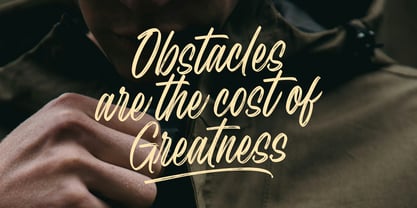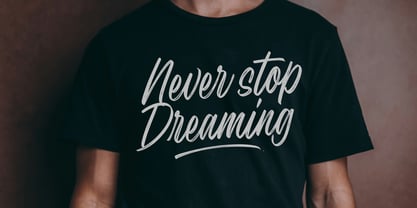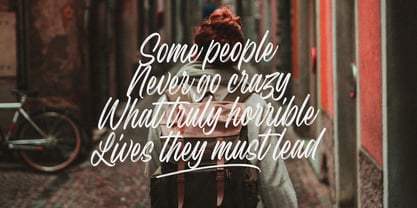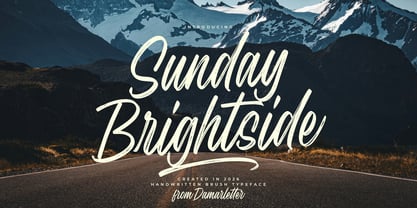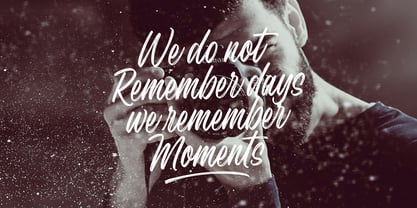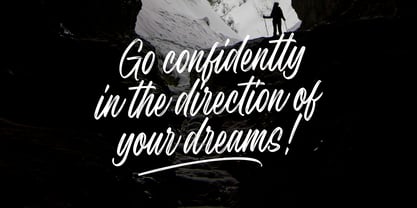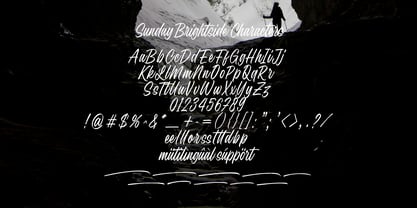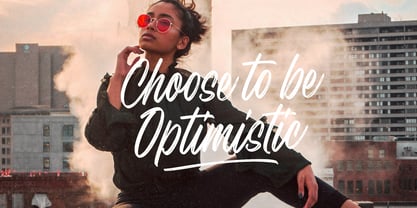
Sunday Brightside
by Damarletter
The Sunday Brightside Font Family was designed by Ardian Nuvianto and published by Damarletter. Sunday Brightside contains 1 styles. More about this family
Sunday Brightside is a lively and expressive handwritten brush typeface that captures the joy and freedom of creative expression. With its bold, textured strokes and natural hand-painted flow, this font radiates positivity and charm, making it perfect for designs that aim to feel energetic and uplifting. Inspired by the spontaneity of brush lettering, Sunday Brightside features dynamic letterforms with authentic brush textures that add depth and personality to every word. Whether you’re designing eye-catching posters, stylish branding, social media graphics, or playful packaging, this typeface brings a fresh and modern vibe to your projects. The organic movement and confident strokes of Sunday Brightside create a sense of warmth and approachability, while still maintaining a strong visual impact. Its versatile style makes it suitable for both casual and bold creative concepts, effortlessly standing out in both print and digital designs. Add a splash of creativity to your work with Sunday Brightside, and let its vibrant brush style bring brightness, character, and handcrafted authenticity to every design.
Designers: Ardian Nuvianto
Foundry: Damarletter